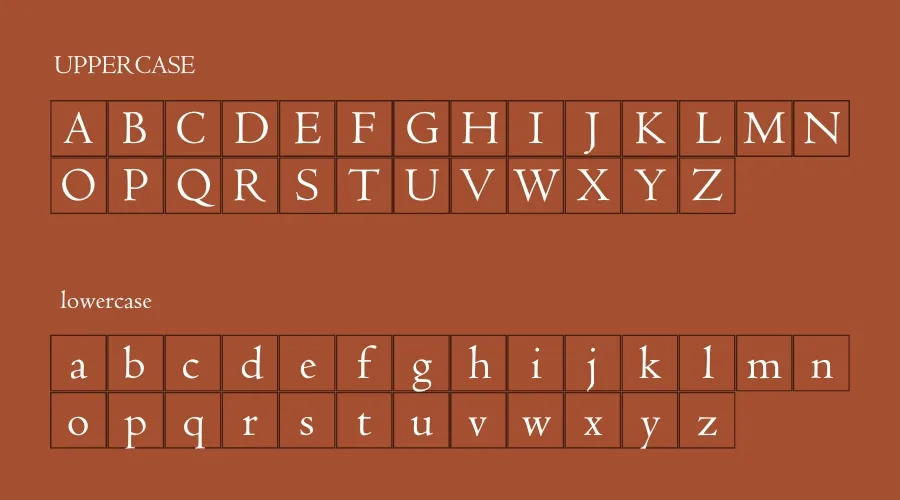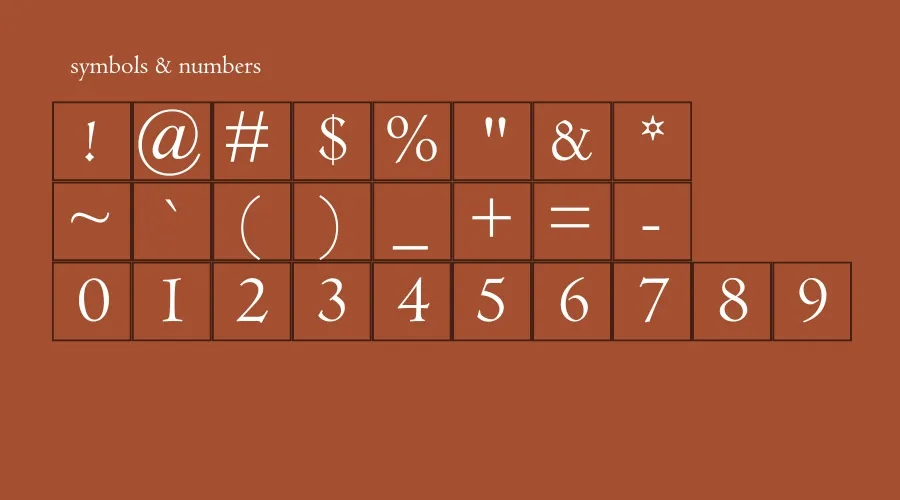
Centaur Font
About Centaur Font
The Centaur Font is a famous typeface in all around the world. It was created by textbook and typeface developer Bruce Rogers. This gorgeous font is look like the serif typeface family with a special texture look for the visitors.
This font established on the Renaissance period printing of Nicolas Jenson almost 1470. The copy and paste futures of this typeface is perfect for any tasks. It has been utilizing for his purpose of the Oxford Lectern Bible. The online generator tool of this typeface is excellent for converting all simple surface into stylish characters.
It was published in the font world through the British branch of monotype. It includes multiple types of weights (Regular, italic, bold) with extraordinary textures such as small letters, capital letters, digital, symbols, and many more.
You may be utilized for multiple projects, such as logo designs, cloth printings, social media posts, posters, banners, and many more.
It is mostly use for fine book printing, body text, titles, and especially headings and lengthy paragraphs. This font has amazing pairing quality, and can pair with Ravie Font. You may also utilize it for Images for websites and blogs, Brochures (print and digital), Books, Presentations, Social media ads, banners, and graphics, Title sequences and end credits, Vehicle wraps.
Designer Bruce Rogers
Style Serif
What type of Font is Centaur Font?
The Centaur Font is a famous typeface in all around the world. It gained popularity in very short time all around the world.
Who is the designer of Centaur Font?
It was created by textbook and typeface developer Bruce Rogers. This gorgeous font is look like the serif typeface family with a special texture look for the visitors.
What font is closest to Centaur Font?
The closest font of this wonderful typeface is Typograph Font.